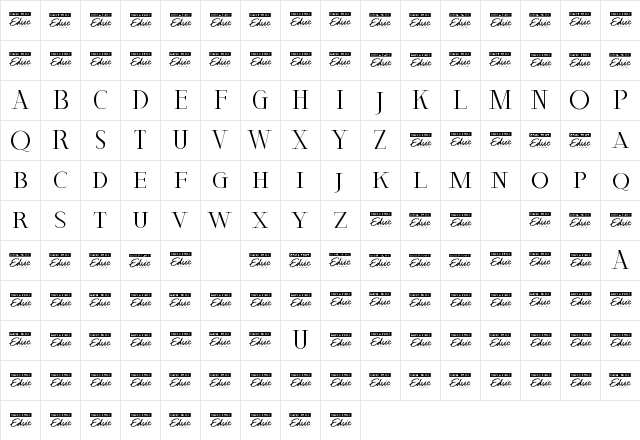
Prince Osteo Demo Regular Free Font
Prince Osteo Demo Regular
Foundry: Edric Studio
Designer: Widiyanti & Sarah SP
Design Context for Prince Osteo Demo
Prince Osteo Demo is a composed and adaptable typeface that performs quietly and consistently across a wide range of design contexts.